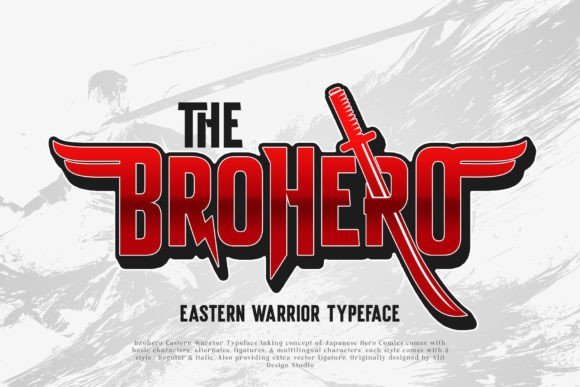
Unleashing the Hero Within: Introducing the Brohero Font
Remember that moment when you’re browsing through action movie posters, and you’re instantly drawn to the bold, heroic typography? For designers, it’s a moment of pure inspiration, and that’s exactly what the Brohero Font is all about. This font is a tribute to the iconic posters of war and knights in the Japanese Samurai era, with a bold character that screams heroism.
The Brohero Font is a game-changer for designers who want to create titles, logotypes, and designs that exude heroism and bravery. With its italic style and PUA encoded glyphs, it’s the perfect tool for making your designs stand out. Whether you’re working on a movie title, a game, or a t-shirt design, the Brohero Font has got you covered.
Brohero Font Key Features
- Unique Characteristics: Brohero Font features a bold, modern design with a mix of geometric and organic elements, making it ideal for bold typography and headlines.
Review: Brohero Font
Overall, I think the Brohero Font has some great qualities that make it a solid choice for certain projects. ✨ The font’s bold, geometric design gives it a strong, modern feel that can work well in a variety of contexts, from tech startups to fashion brands.
The font’s versatility is one of its strongest suits. ✨ It comes in a range of weights and styles, from light and elegant to bold and playful, making it easy to find the perfect fit for your project. The font also includes a wide range of glyphs and language support, making it a great option for projects that require a lot of internationalization.
- Strong, modern design
- High level of customization (multiple weights and styles)
- Wide range of glyphs and language support
- ⚠️ The font’s bold design may not be suitable for all types of projects, particularly those that require a more traditional or elegant look
- ⚠️ Some users may find the font’s geometric design a bit too stark or cold
Overall, I think the Brohero Font is a solid choice for projects that require a strong, modern look. While it may not be the best option for every project, it’s definitely worth considering for those that require a bold, geometric design.
The Brohero font is ideal for:
- Creating bold, eye-catching headlines.
- Designing gaming-related graphics and logos.
- Adding a touch of edginess to marketing materials.